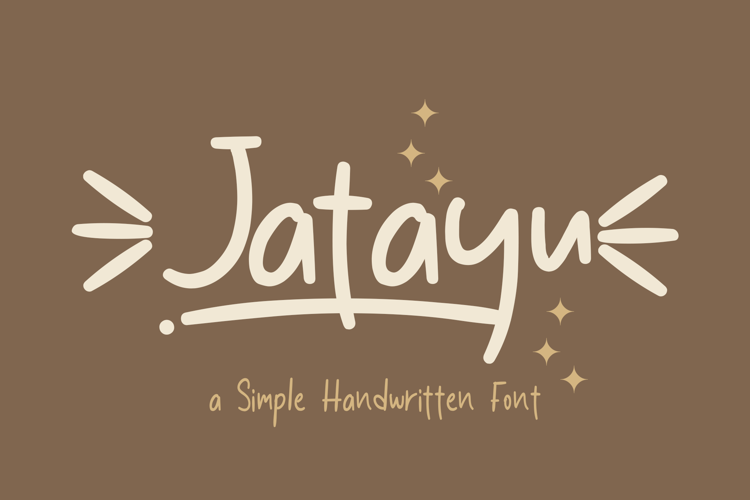
Jatayu Font
Jatayu is a simple handwritten font. This font is versatile for any project especially designs that need a hand touch. This font also contains unique lowercase that will make your project more natural. This font is perfect for product packaging, branding project, magazine, social media, weddings, or just used to express words above the background.